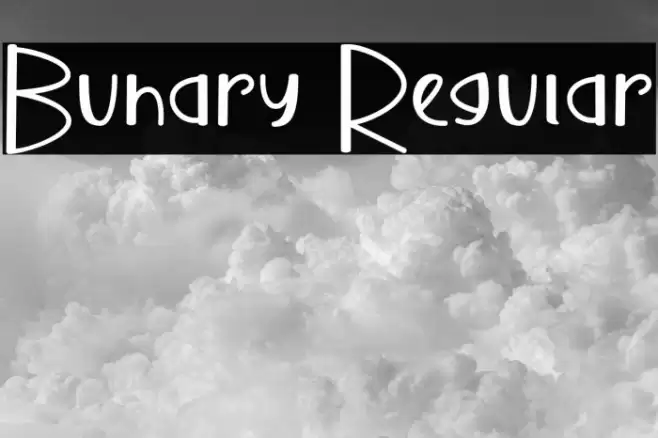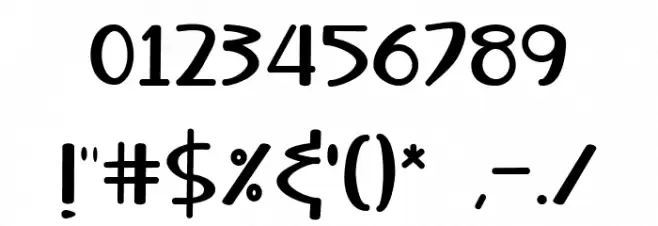
Buhary Regular Font
Buhary Regular Description
This font features a playful and whimsical style, characterized by its rounded and slightly irregular letterforms. The uppercase letters have a tall and narrow appearance, while the lowercase letters are more compact and rounded. The overall design gives a hand-drawn feel, with a casual and friendly vibe. The numbers and special characters maintain the same playful aesthetic, making it suitable for informal and creative projects. The strokes are consistent in weight, providing a uniform look across all characters.
A playful, hand-drawn style font with rounded, irregular letterforms from Uncategorized fonts.
- Overall Style: Playful